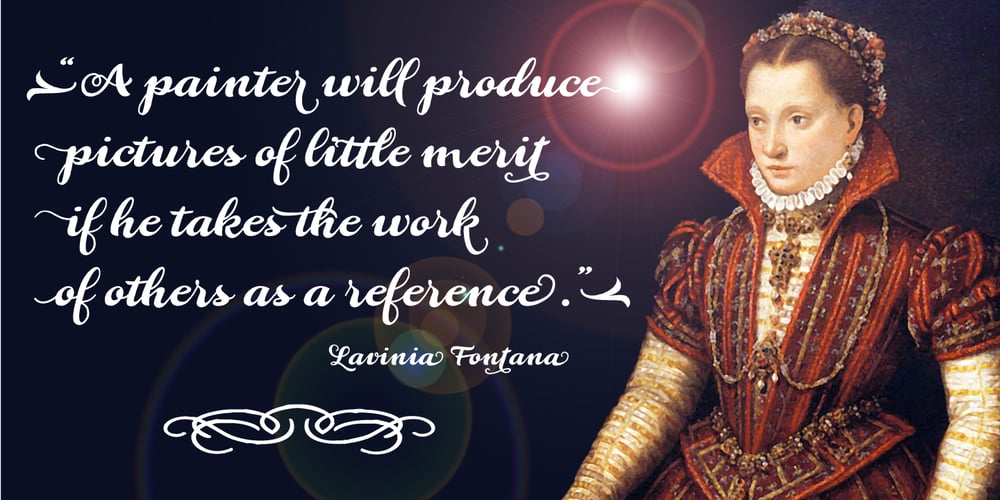
Lavinia
Lavinia font
Lavinia Font Family was designed by Carine de Wandeleer and published by Eurotypo. Lavinia contains 1 styles and family package options. Lavinia is the new hand lettered script font, full of fun calligraphy with 962 characters and a host of specials features that will allow you to add more personality and originality to your work. Lavinia is a seamlessly connecting alphabet. Using OpenType contextual, stylistics alternatives, swatches each lowercase has the minimum ten versions and each capital letter two variants. Also, Lavinia comes with a custom set of standard and discretionary ligatures, lots of goodies ornaments and flourishes, catchwords, tails, words with stylistics alternates, special double letters ligatures. This lovely font has an extended character set to support Central and Eastern as well as Western European languages. Mix and match them for a custom look! You can quickly change the appearance of your design. It’s like getting a lot of fonts for one! Lavinia is perfect for logos, advertising, announcement, invites, thank you’s and correspondence, for packaging, and to create all yours fun and moderns designs you want. There are plenty of options to allow you to create something unique and special. Test it, you will not regret! Have fun with it!